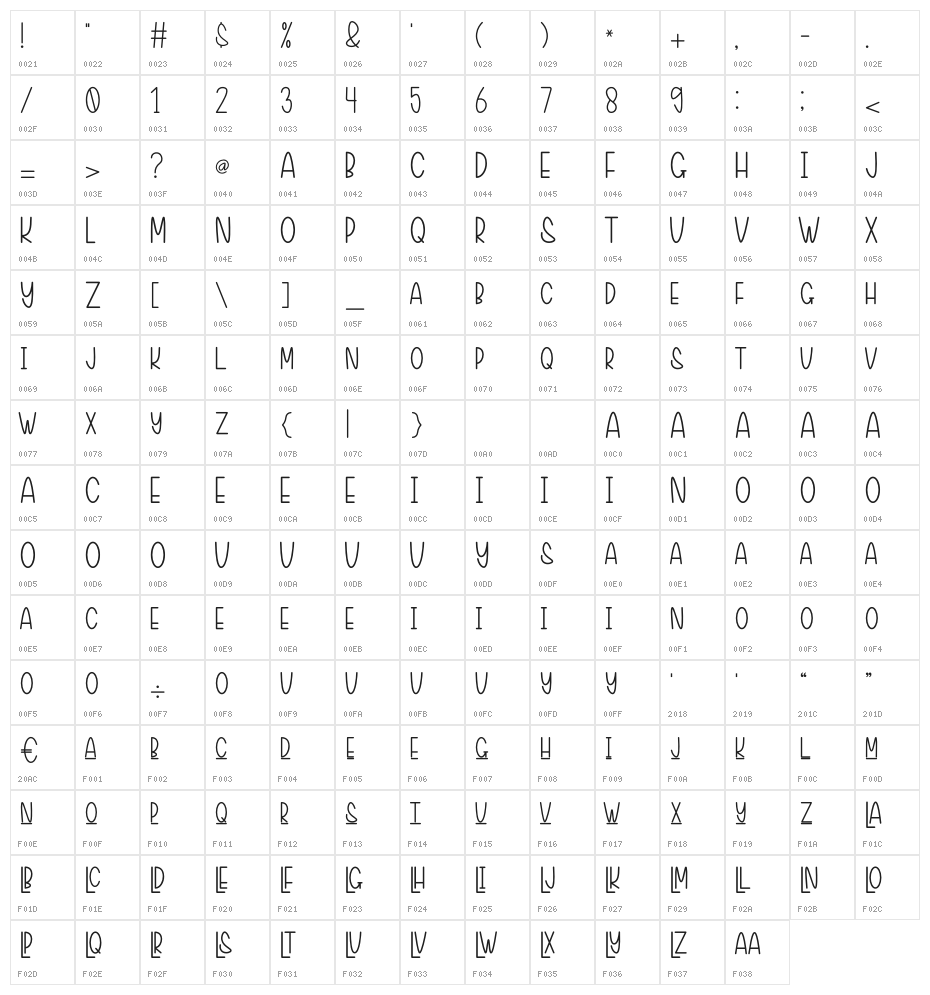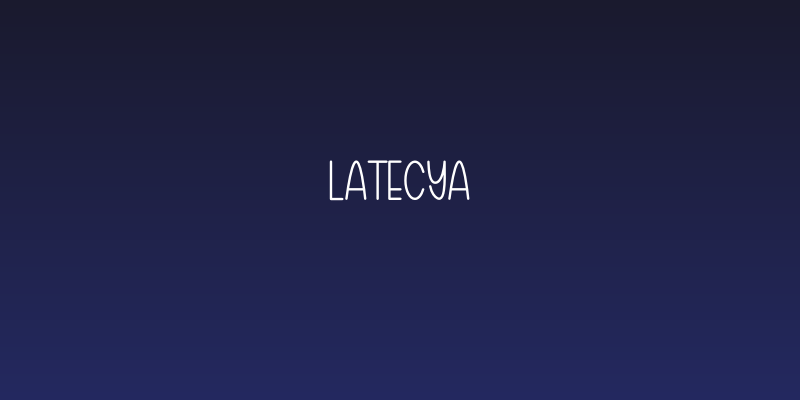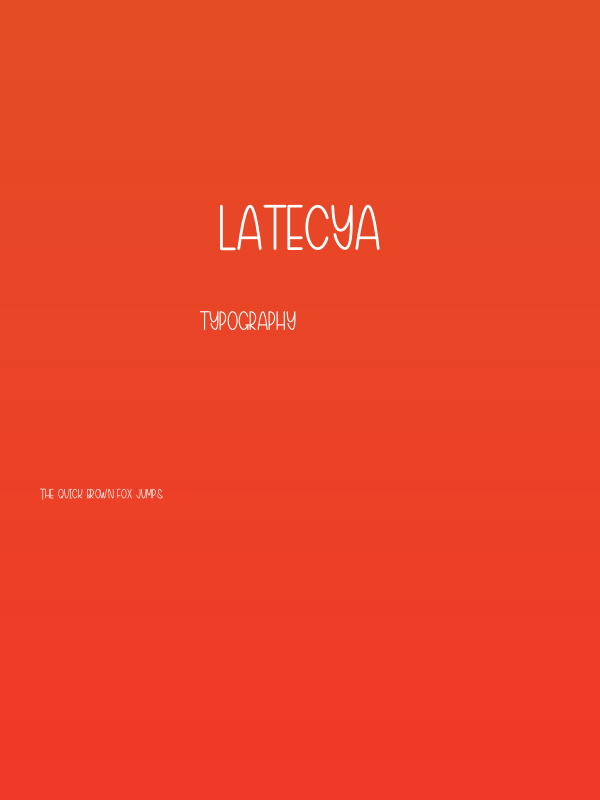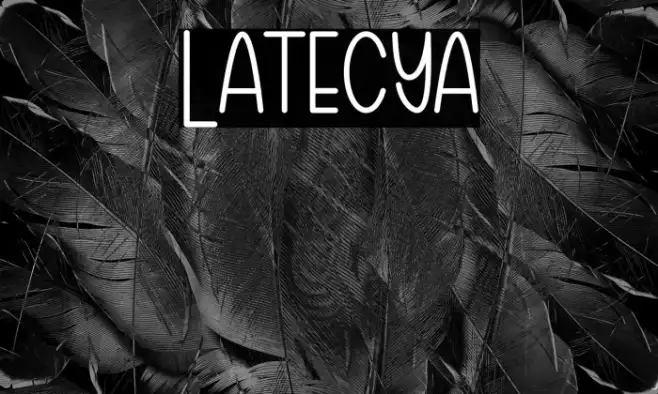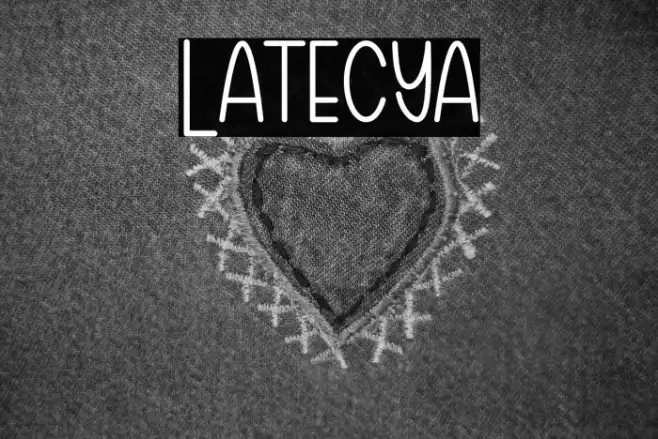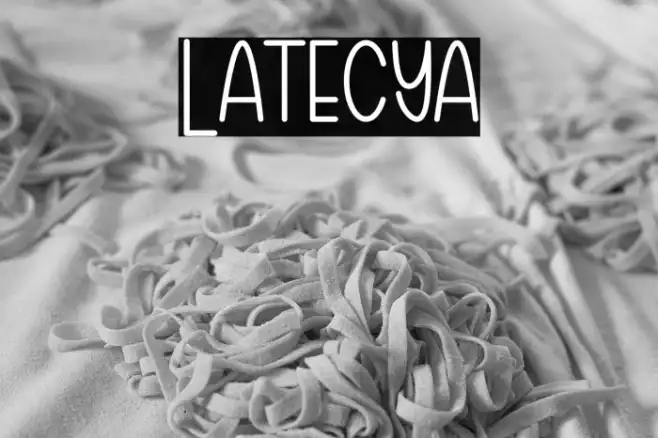
Latecya Font
Latecya Description
This font features a playful and casual handwritten style, characterized by its tall, narrow letters and rounded edges. The strokes are consistent in width, giving it a uniform appearance. The uppercase and lowercase letters maintain a cohesive look, with the lowercase letters slightly smaller in size. Numbers and special characters are designed to match the overall style, ensuring a harmonious look across all text. The font exudes a friendly and approachable vibe, making it suitable for informal and creative projects.
| Proposed Projects | Ideal for children's books, greeting cards, playful branding, and casual invitations. |